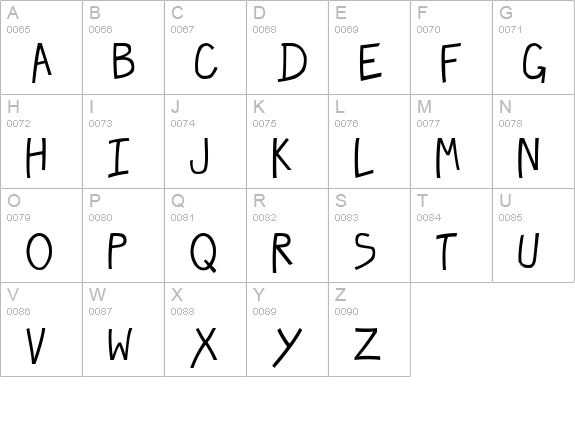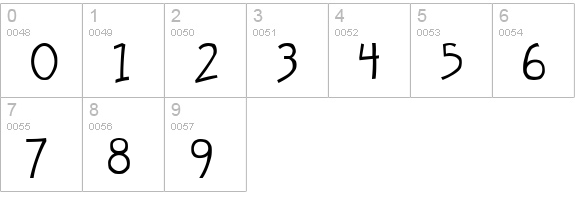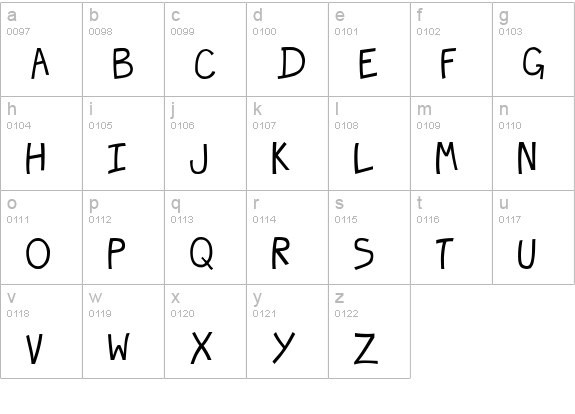
Hecubus Font Details
Hecubus font is a captivating and versatile typeface that will surely make a lasting impression on any design project. With its unique and intricate letterforms, Hecubus exudes a sense of elegance and sophistication. This font effortlessly blends traditional and modern elements, making it suitable for a wide range of applications. The flowing curves and sharp angles of Hecubus create a harmonious balance, allowing for seamless readability without compromising on style. Its bold and confident strokes command attention, making it ideal for headlines, logos, posters, and branding materials. Whether used in print or digital media, Hecubus will leave a remarkable impression. One of the most appealing aspects of Hecubus is that it is freely available to download at FontsMarket.com. This means that designers and enthusiasts alike can access this remarkable font without any cost. By making Hecubus available for free, it opens up endless possibilities for creativity, allowing designers to experiment and create stunning visuals without any limitations. With its wide range of characters and extensive language support, Hecubus is a truly versatile font that can be used in various design projects. Whether you're working on a branding campaign, a magazine layout, or a website design, Hecubus will add a touch of sophistication and uniqueness to your work. Overall, Hecubus font is a remarkable typeface that combines elegance, versatility, and accessibility. With its stunning aesthetics and the fact that it is freely available to download at FontsMarket.com, Hecubus is an excellent choice for designers looking to elevate their projects to the next level. So why wait? Download Hecubus now and unlock your creative potential.